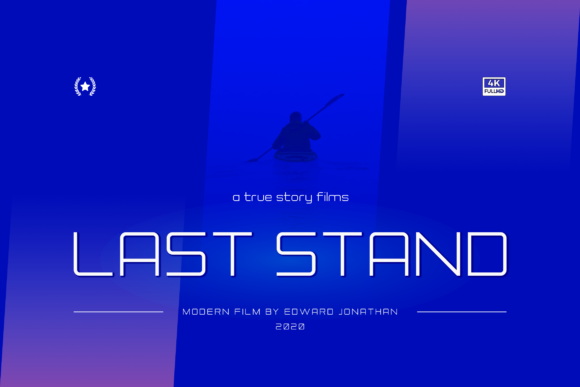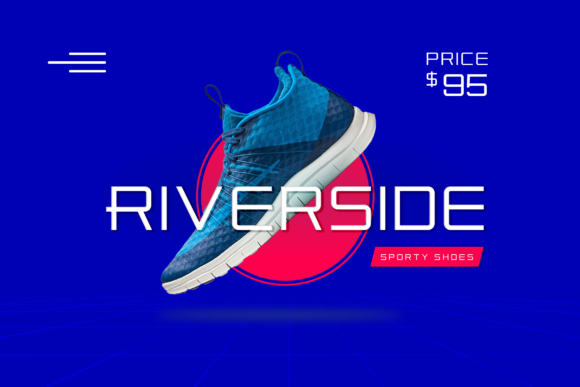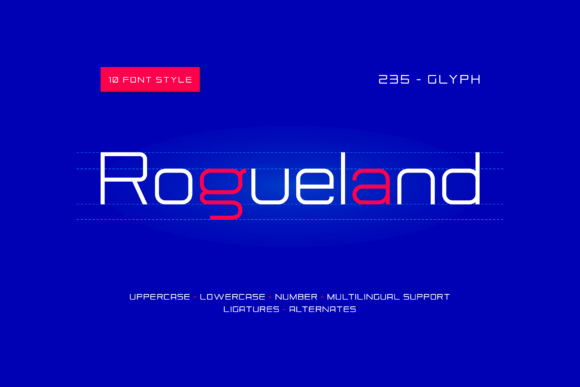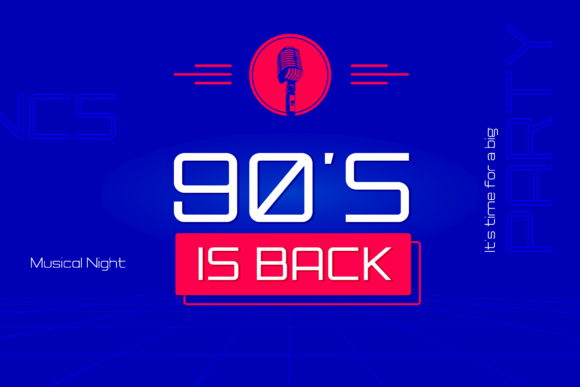
Introduction to Rogueland Font
Rogueland is a techno styled and simple sans serif font.
This original look will appeal to a wide range of ideas, from letterheads and titles, to stationery .
Key Features of Rogueland Font
Why Choose Rogueland Font?